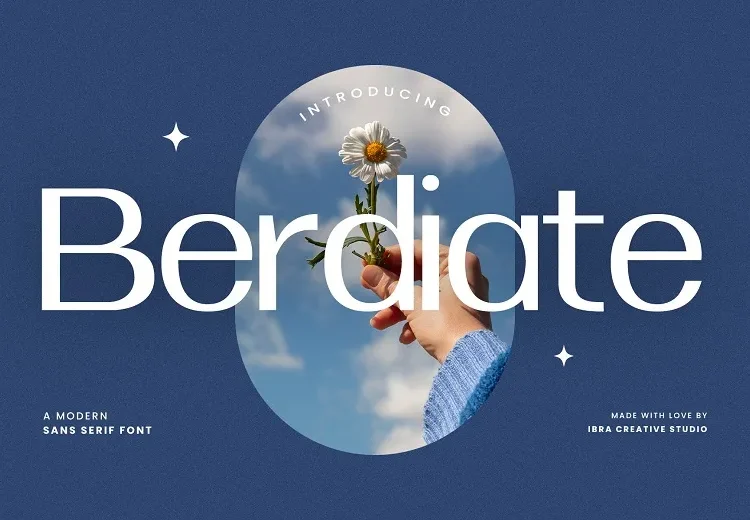
Berdiate Font
Berdiate is a modern sans serif font designed to embody current design trends with its clean, geometric shapes and minimalist aesthetic. Its well-refined typography ensures high readability and functionality across various contexts, making it a versatile choice for contemporary design needs.
Key Features of Berdiate Font:
• Geometric and Minimalist Design: Berdiate embraces a minimalist approach with clear shapes and geometric forms. The absence of decorative serifs and the smooth, consistent line work contribute to its modern and sophisticated appearance.
• Enhanced Readability: Designed with functionality in mind, Berdiate’s refined typography enhances readability, making it ideal for both digital and print media.
• Contemporary Aesthetic: The font’s clean design aligns with modern design trends, providing a fresh and current look for a range of applications, from websites and branding to editorial layouts and advertising.
• Versatile Use: Berdiate’s straightforward design and high readability make it suitable for a wide variety of projects, ensuring that it performs well in different contexts and design environments.